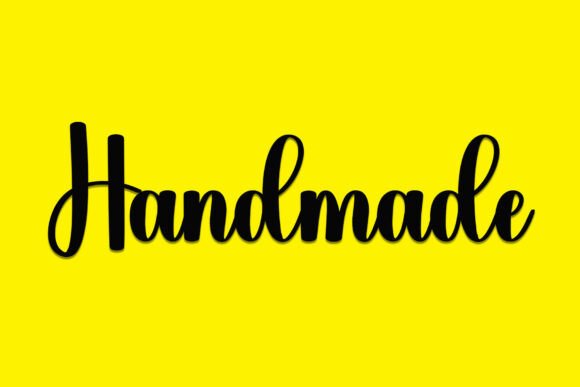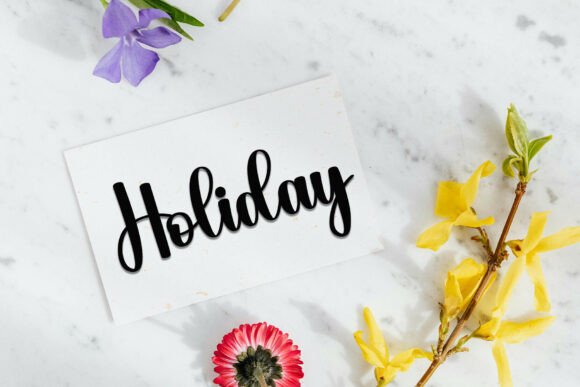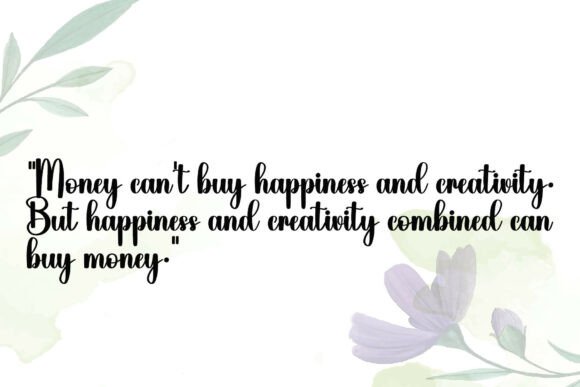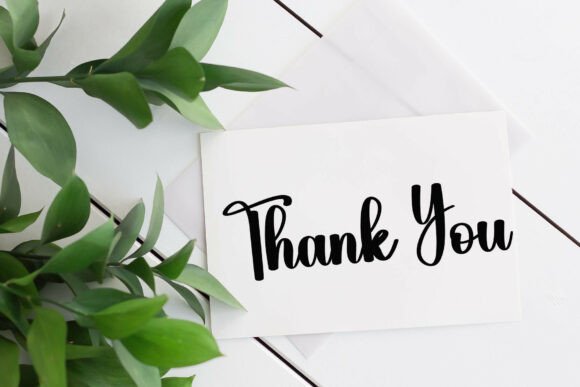
Introducing Delighter Font: Elevate Your Designs with a Delicate Handwritten Touch
In the world of design, fonts play a crucial role in conveying the tone and personality of a project. Whether you’re crafting an invitation, designing a food product label, or creating a title for a blog post, the right font can make all the difference. This is where Delighter Font comes in – a delicate handwritten font carefully crafted for a cool and unique design. In this article, we’ll dive into the world of Delighter Font, exploring its features, uses, and benefits for designers and crafters.
What is Delighter Font?
Delighter Font is a beautiful, handwritten font designed to add a touch of elegance and sophistication to your designs. Its delicate strokes and unique flair make it perfect for creating eye-catching titles, invitations, and labels. With its clean and simple design, Delighter Font is versatile enough to be used in a variety of projects, from food packaging to digital media.
Key Features of Delighter Font
- Delicate Handwritten Style: Delighter Font boasts a delicate, handwritten style that adds a personal touch to your designs.
- Unique Flair: The font’s unique flair and strokes set it apart from other handwritten fonts, making it perfect for designers looking for something distinctive.
- Clean and Simple Design: Delighter Font’s clean and simple design makes it easy to read and versatile enough to be used in a variety of projects.
- Cool and Unique Design: The font’s cool and unique design makes it perfect for designers looking to add a touch of sophistication to their projects.
Uses of Delighter Font
Delighter Font is a versatile font that can be used in a variety of projects, including:
- Invitations: Delighter Font is perfect for creating beautiful, eye-catching invitations for weddings, parties, and other special events.
- Food Products: The font’s clean and simple design makes it perfect for labeling food products, such as baked goods, candies, and specialty foods.
- Titles and Headings: Delighter Font can be used to create stunning titles and headings for blog posts, articles, and other digital media.
- Labels and Packaging: The font’s unique flair and delicate strokes make it perfect for labeling products, such as cosmetics, candles, and handmade crafts.
Benefits of Using Delighter Font
Delighter Font offers several benefits for designers and crafters, including:
- Elegance and Sophistication: Delighter Font adds a touch of elegance and sophistication to your designs, making them stand out from the crowd.
- Versatility: The font’s clean and simple design makes it versatile enough to be used in a variety of projects.
- Unique Flair: Delighter Font’s unique flair and strokes set it apart from other handwritten fonts, making it perfect for designers looking for something distinctive.
- Easy to Read: The font’s clean and simple design makes it easy to read, even at small sizes.
Tips for Using Delighter Font
Here are a few tips for using Delighter Font in your designs:
- Pair with Other Fonts: Delighter Font pairs well with other fonts, such as sans-serif fonts, to create a stunning contrast.
- Use for Headings and Titles: Delighter Font is perfect for creating headings and titles, adding a touch of elegance and sophistication to your designs.
- Experiment with Colors: Delighter Font looks great in a variety of colors, from bold and bright to soft and pastel.
In conclusion, Delighter Font is a beautiful, delicate handwritten font that can elevate your designs to the next level. With its unique flair, clean and simple design, and versatility, Delighter Font is perfect for designers and crafters looking to add a touch of elegance and sophistication to their projects.